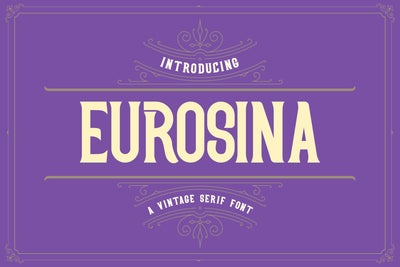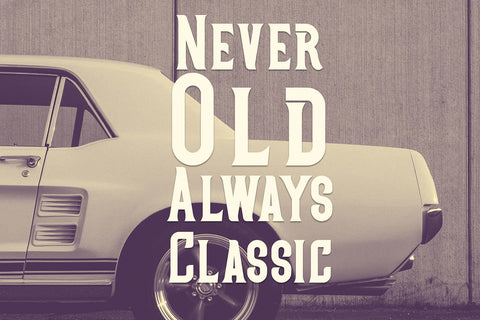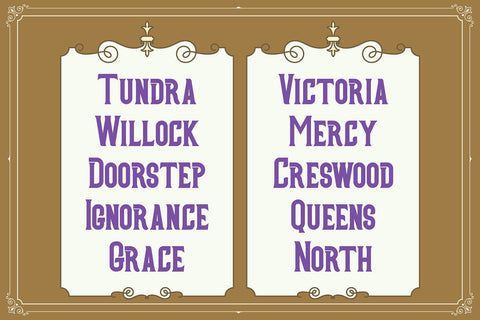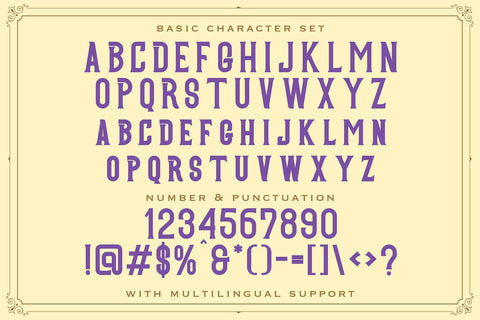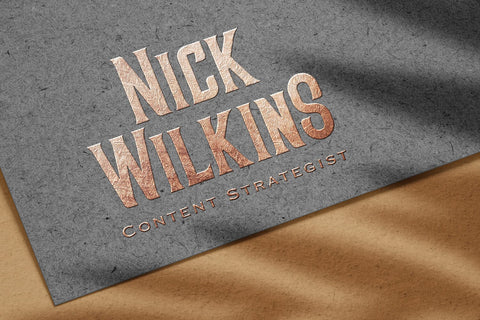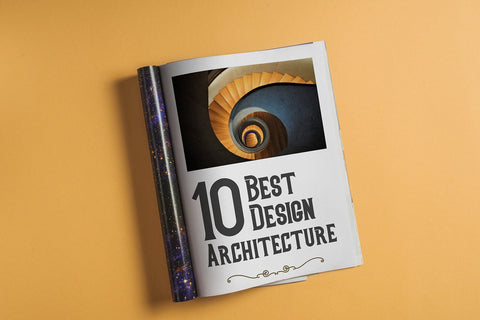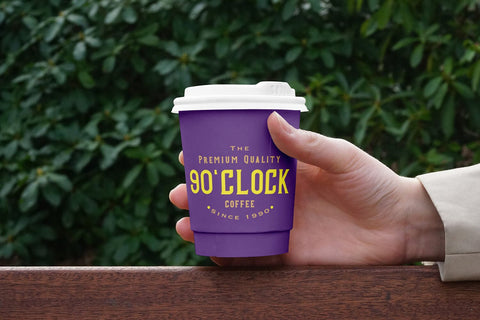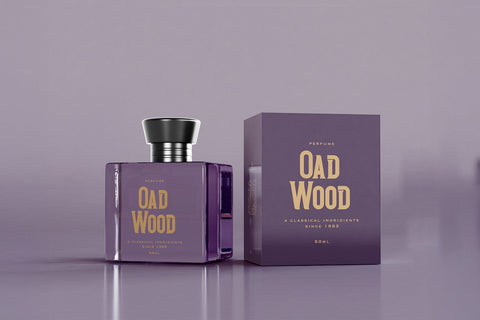
Eurosina - Vintage Serif Victorian Font
Introducing Eurosina - Vintage Serif Victorian Font
Eurosina is a vintage serif Victorian font inspired by the elegance and decorative typography of the Victorian era. Its refined serifs and ornamental character create a classic and sophisticated look that adds timeless charm to any design.
This font is perfect for logos, branding, book covers, posters, invitations, editorial layouts, packaging, and decorative typography. Eurosina brings a historical and artistic atmosphere, making it ideal for designs that aim to capture a classic vintage aesthetic.
With its detailed letterforms and elegant style, Eurosina helps create visually rich compositions while maintaining readability and a distinctive vintage personality.